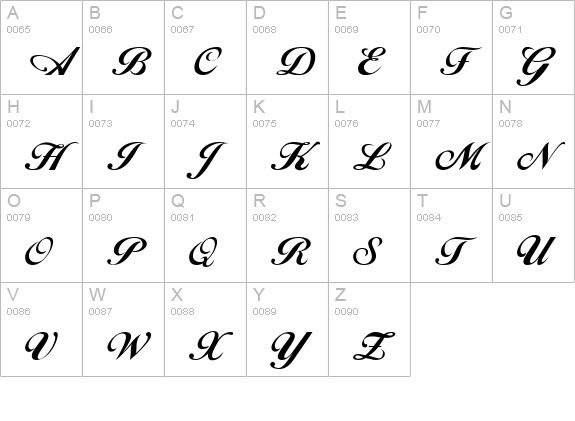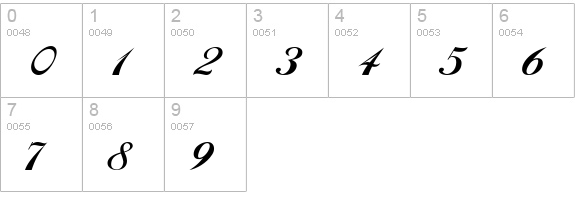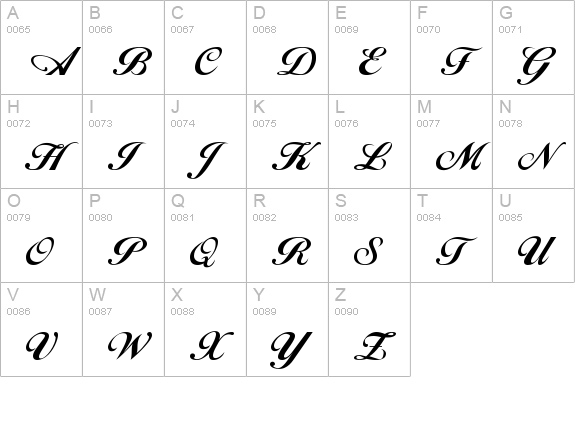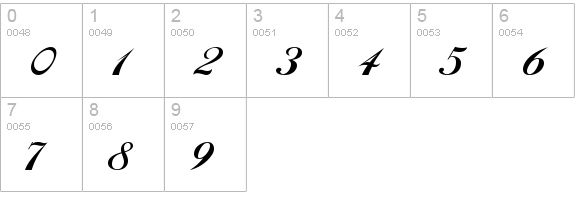
Introducing TQF_AllisonScript, a gorgeous and versatile font that effortlessly captures the essence of elegance and sophistication. This script font is the epitome of timeless beauty, making it the perfect choice for a wide range of design projects. With its delicate strokes and graceful curves, TQF_AllisonScript adds a touch of femininity and charm to any design. Whether you're creating wedding invitations, branding materials, or simply adding a touch of elegance to your personal projects, this font will elevate your work to new heights. One of the most remarkable features of TQF_AllisonScript is its versatility. It seamlessly blends classic and modern elements, allowing you to create designs that are both timeless and contemporary. This font truly has the ability to adapt to any style or theme, making it a must-have for every designer's toolkit. And the best part? TQF_AllisonScript is absolutely free! Yes, you read that right. This stunning font is freely available to download at FontsMarket.com. We believe in making beautiful typography accessible to all, and TQF_AllisonScript is our way of spreading the love for design. So why wait? Add a touch of elegance to your next project with TQF_AllisonScript. Download it for free at FontsMarket.com and let your creativity soar.